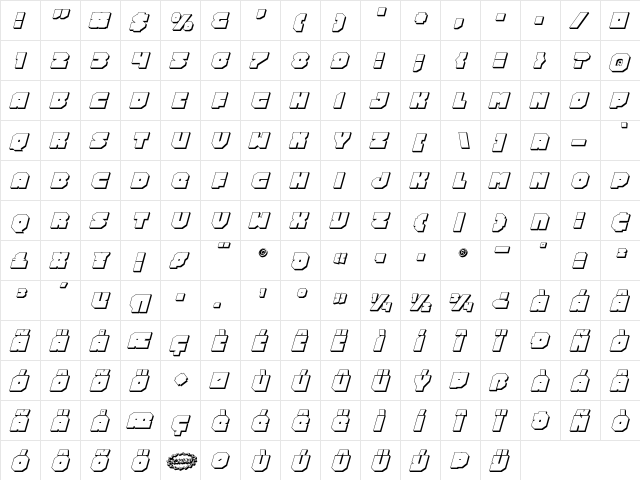
Turtle Mode 3D Italic Italic
Design Context for Turtle Mode 3D Italic Typeface
Turtle Mode 3D Italic is a composed and adaptable typeface that performs quietly and consistently across a wide range of design contexts. The dynamic lean of this cut emphasises speed and emphasis in any layout.
Pro Tip: Use Turtle Mode 3D Italic for emphasis, pull quotes, and subheadings where its slanted energy can add rhythm to the layout.